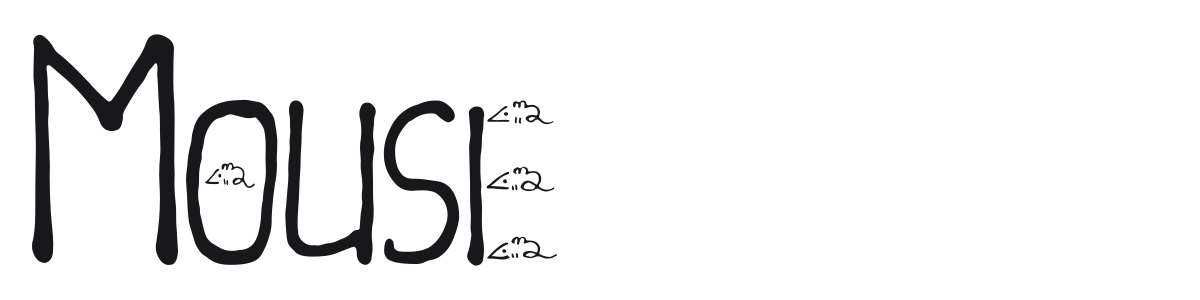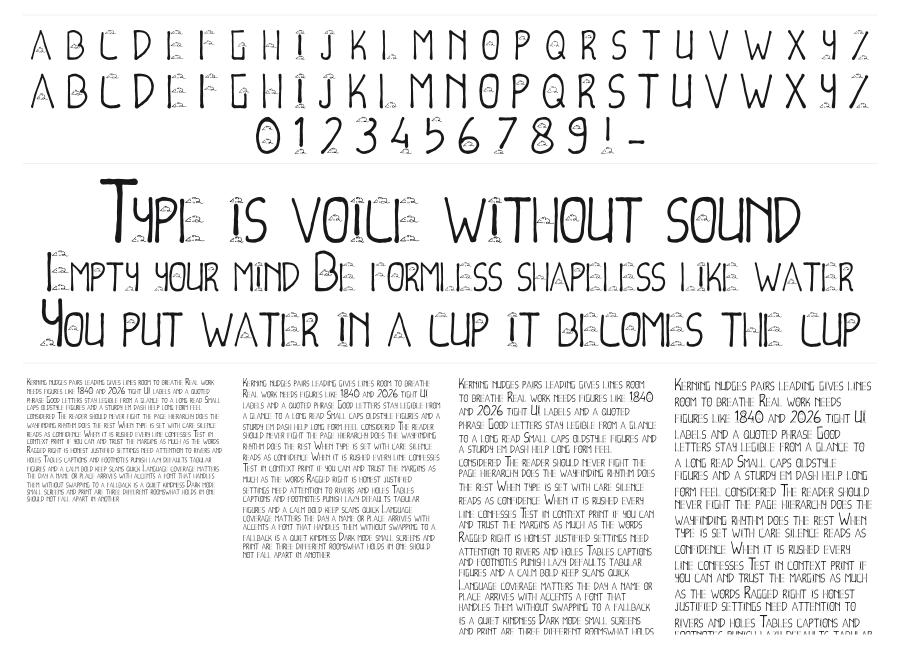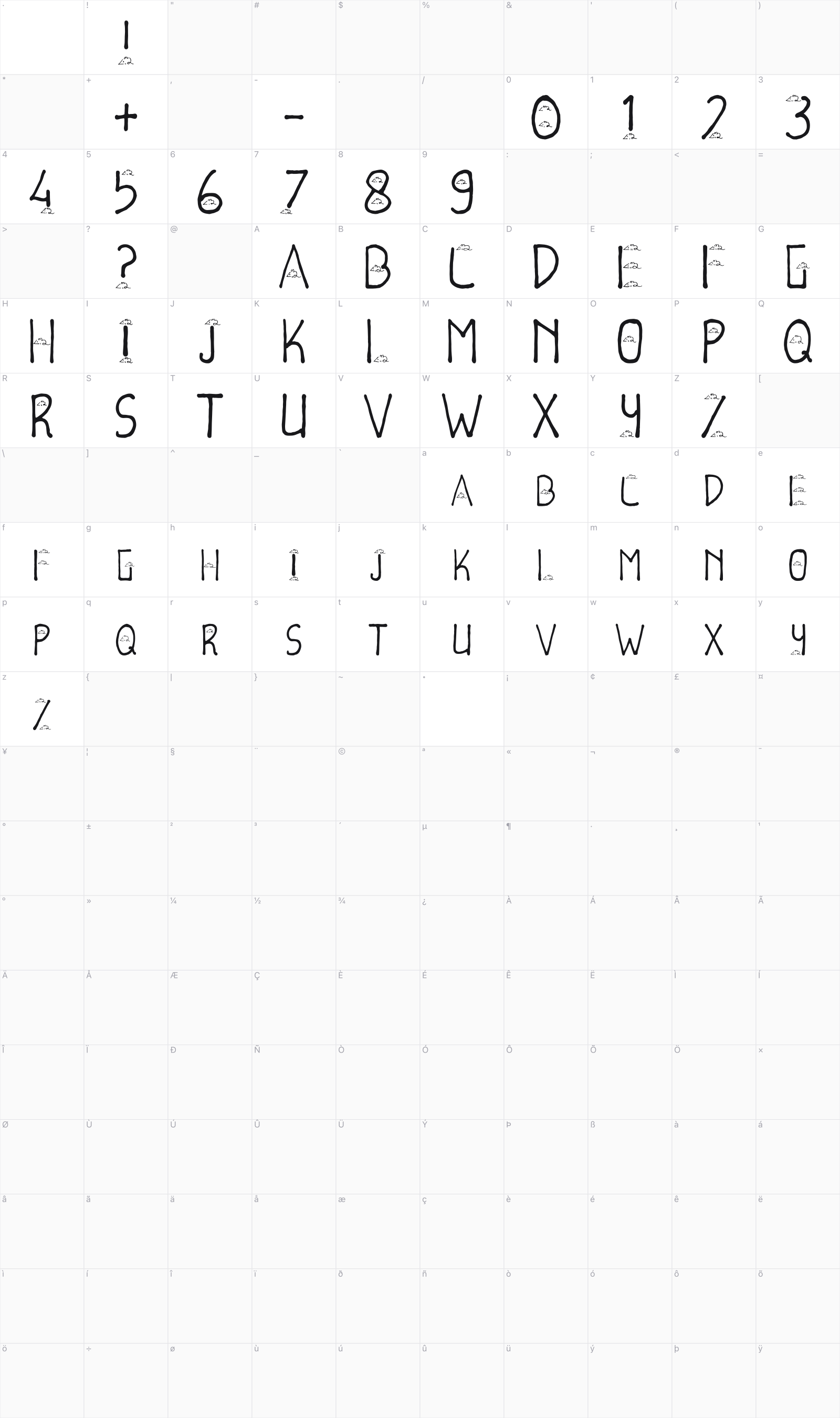
Mouse
by Ditya Ananto
Mouse is a novelty display font where tiny illustrated mice are woven directly into the letters. The tall, narrow sans-serif construction keeps things legible at headline sizes while the animal motifs make every line of text a small story. It sits naturally in children's publishing, food packaging, and any context that calls for unapologetic charm.